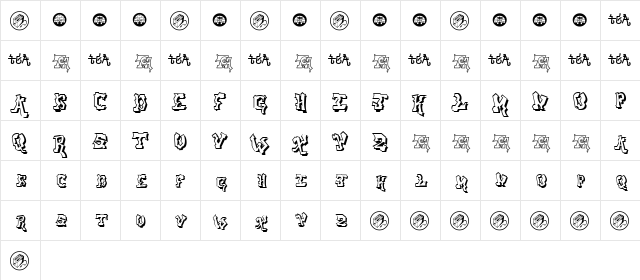
aerosol menace shadow
Design Context for aerosol menace Typeface
aerosol menace brings ornamental detail and strong personality to headlines and identities, where visual impact matters more than quiet functionality.
Font Pairing: Pair with a clean neutral sans-serif for body copy to let aerosol menace's character lead without overwhelming the composition.
Pro Tip: Use aerosol menace exclusively at display sizes — it was designed to be seen, not read at length. Let a neutral companion handle body copy.